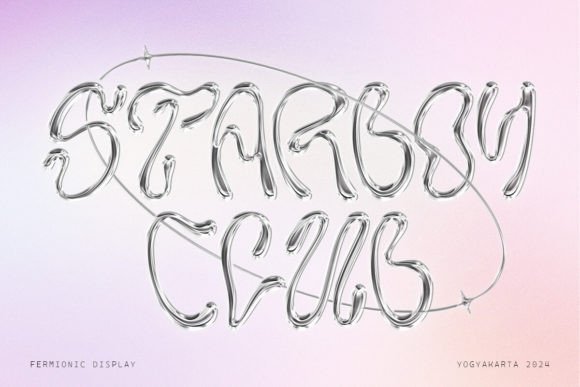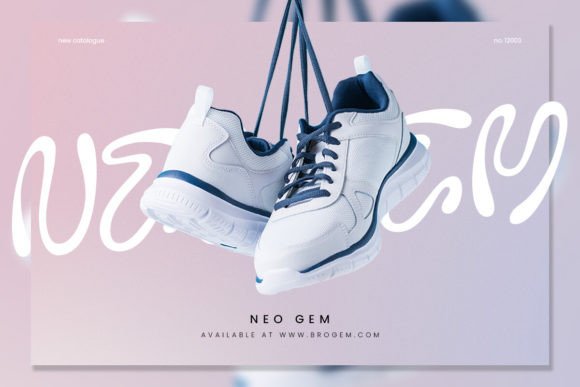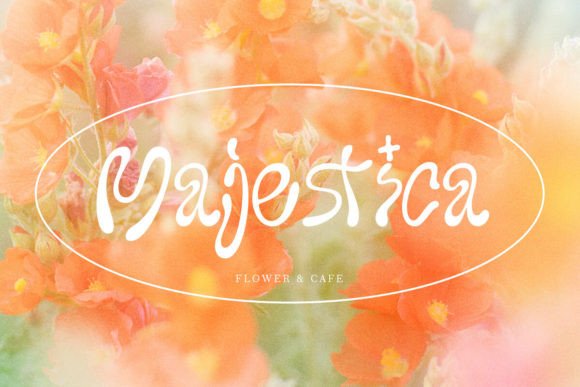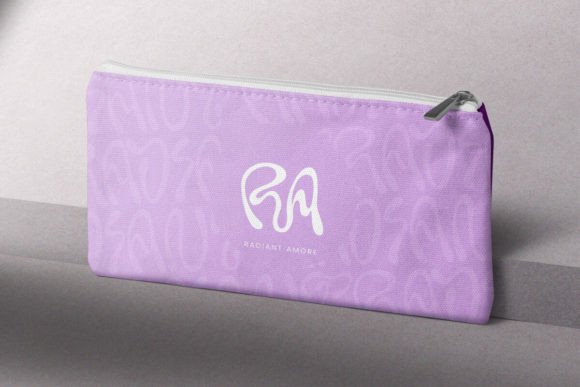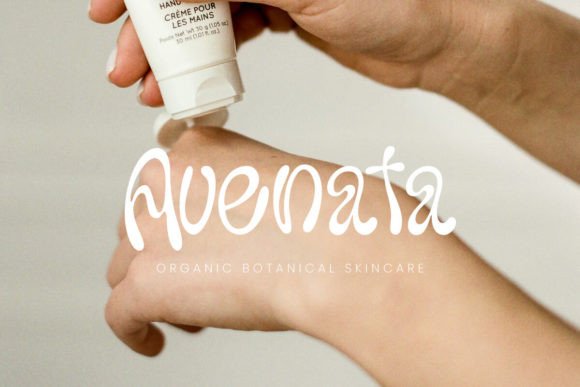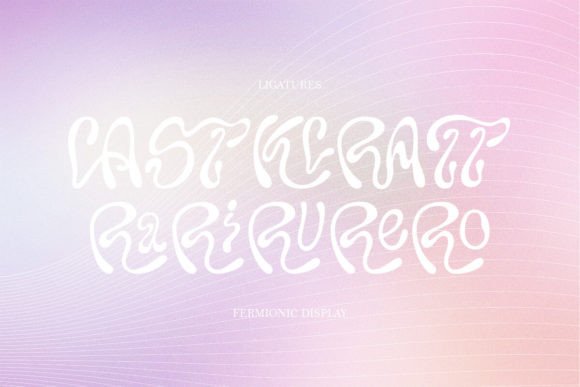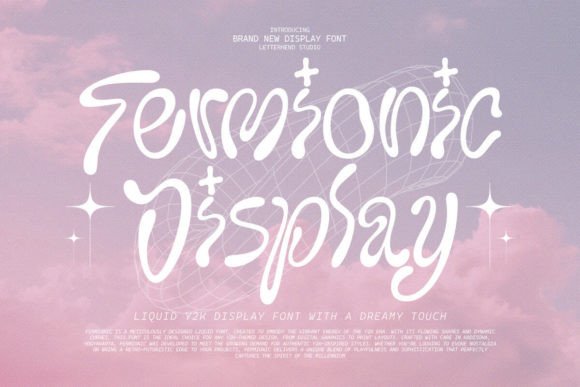
Fermionic Font: Reviving the Vibrant Energy of the Y2K Era
In the world of typography, fonts play a crucial role in conveying the tone and aesthetic of a design. For those looking to evoke the nostalgia of the Y2K era or bring a retro-futuristic edge to their projects, Fermionic Font is an excellent choice. This meticulously designed liquid font embodies the vibrant energy of the millennium, making it perfect for Y2K-themed designs.
What is Fermionic Font?
Fermionic Font is a unique, liquid font that boasts flowing shapes and dynamic curves. Its distinctive design makes it an ideal choice for a wide range of applications, from digital graphics to print layouts. Whether you’re a designer, craftsperson, or simply someone looking to add a touch of nostalgia to your projects, Fermionic Font is sure to impress.
The Inspiration Behind Fermionic Font
The Y2K era, which spanned from the late 1990s to the early 2000s, was a time of great cultural and technological change. The era was characterized by its vibrant energy, playful aesthetic, and futuristic outlook. Fermionic Font captures the essence of this era, bringing its unique blend of playfulness and sophistication to your designs.
Key Features of Fermionic Font
- Flowing Shapes: Fermionic Font features flowing shapes that give it a dynamic, liquid appearance.
- Dynamic Curves: The font’s curves are carefully crafted to create a sense of movement and energy.
- Y2K-Inspired Design: Fermionic Font is designed to evoke the nostalgia of the Y2K era, making it perfect for retro-themed designs.
- Versatile: The font is suitable for a wide range of applications, from digital graphics to print layouts.
Uses for Fermionic Font
Fermionic Font is an incredibly versatile font that can be used in a variety of contexts. Here are some ideas to get you started:
- Y2K-Themed Designs: Use Fermionic Font to create retro-themed posters, flyers, and brochures that evoke the nostalgia of the Y2K era.
- Digital Graphics: Add a touch of playfulness to your digital graphics, such as social media posts, animations, and video games.
- Print Layouts: Use Fermionic Font in print layouts, such as magazines, newspapers, and packaging designs, to add a unique and eye-catching touch.
- Branding and Logo Design: Fermionic Font can be used to create bold and eye-catching logos that perfectly capture the spirit of the Y2K era.
Tips for Using Fermionic Font
To get the most out of Fermionic Font, here are some tips to keep in mind:
- Experiment with Colors: Fermionic Font looks great in bold, bright colors that evoke the vibrant energy of the Y2K era.
- Play with Texture: Add texture to your designs by combining Fermionic Font with different textures and patterns.
- Mix and Match: Don’t be afraid to mix and match Fermionic Font with other fonts to create a unique and eye-catching look.
Fermionic Font is a unique and versatile font that perfectly captures the spirit of the Y2K era. With its flowing shapes and dynamic curves, this font is sure to add a touch of playfulness and sophistication to your designs. Whether you’re a designer, craftsperson, or simply someone looking to evoke nostalgia or bring a retro-futuristic edge to your projects, Fermionic Font is an excellent choice.